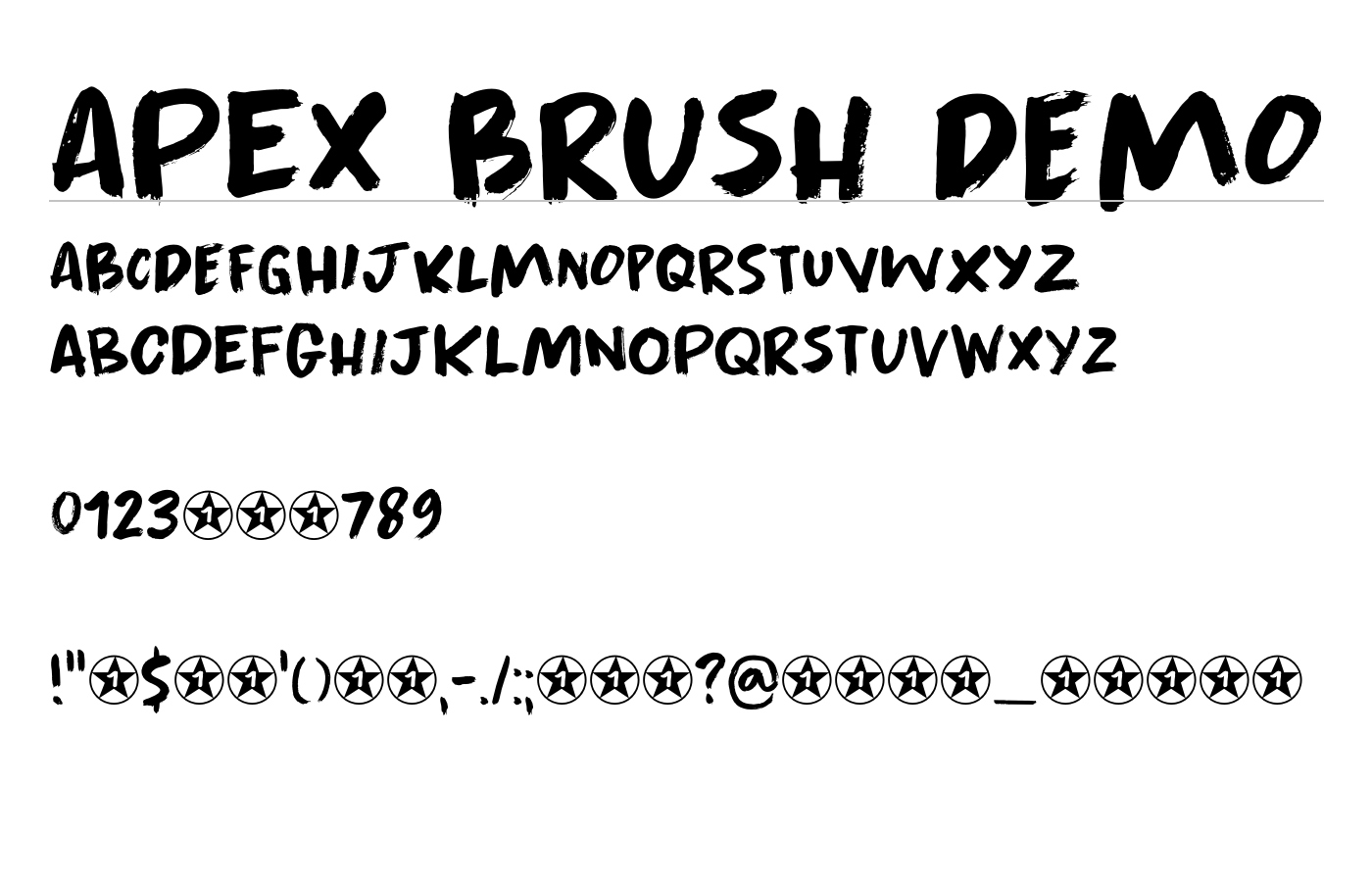
Apex Brush DEMO is a bold, hand-drawn brush script font that feels energetic and casual with its textured, uneven strokes and lively character shapes. Its irregular forms and heavy weight give it a playful, artistic vibe perfect for creative branding, posters, and headlines where a dynamic, informal look is desired. This font works best in designs that want to convey personality and a handcrafted touch without sacrificing readability.
Apex Brush DEMO Font
About Apex Brush DEMO Font